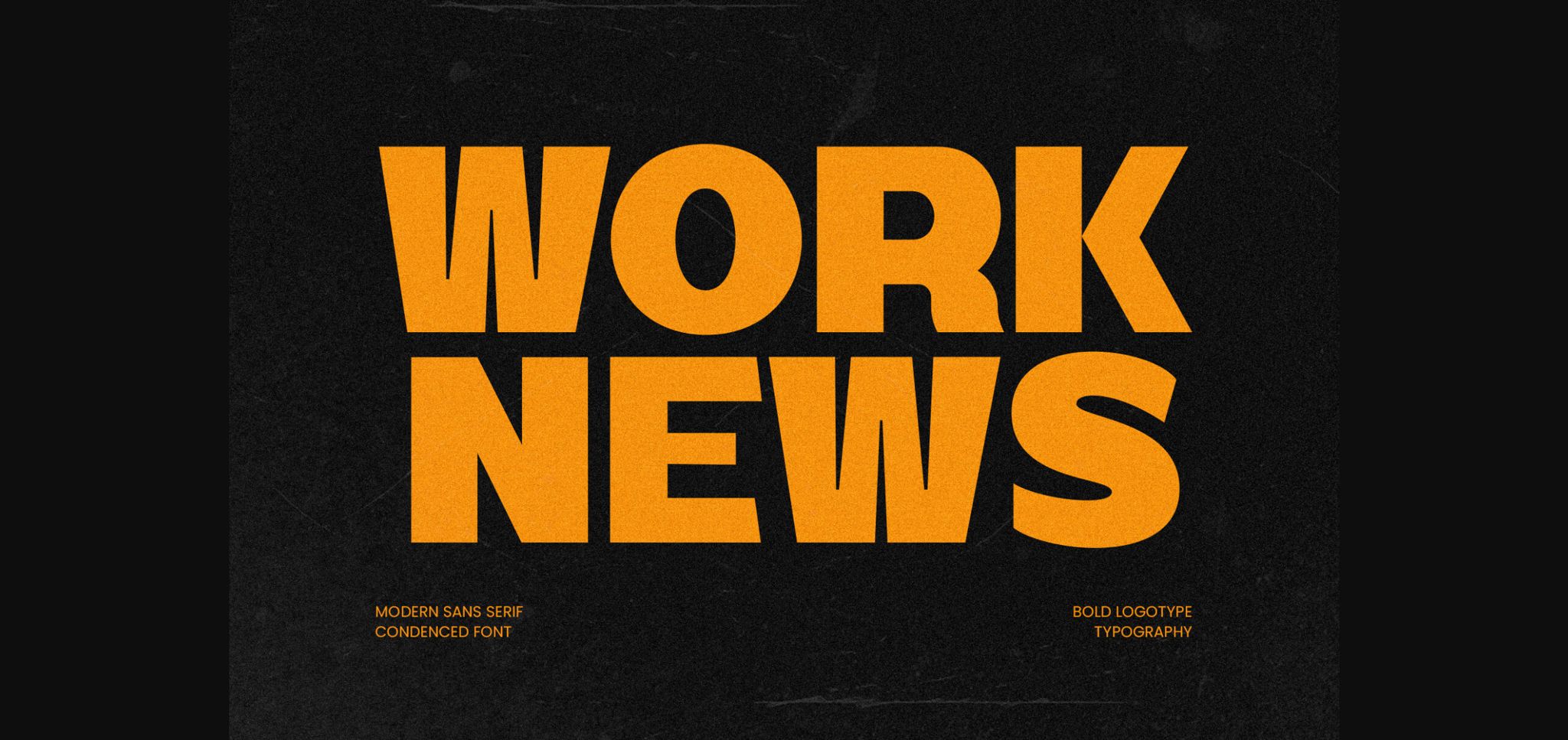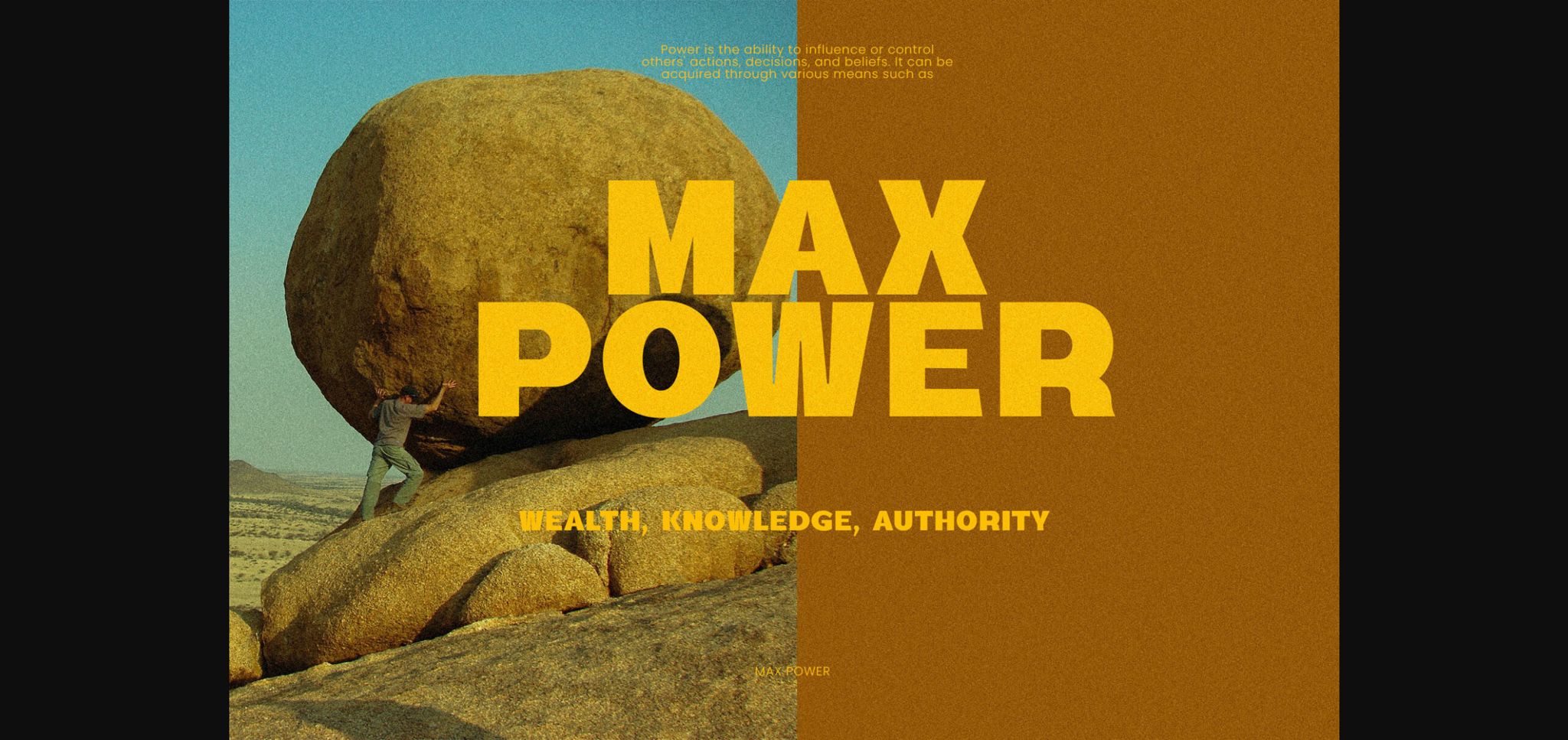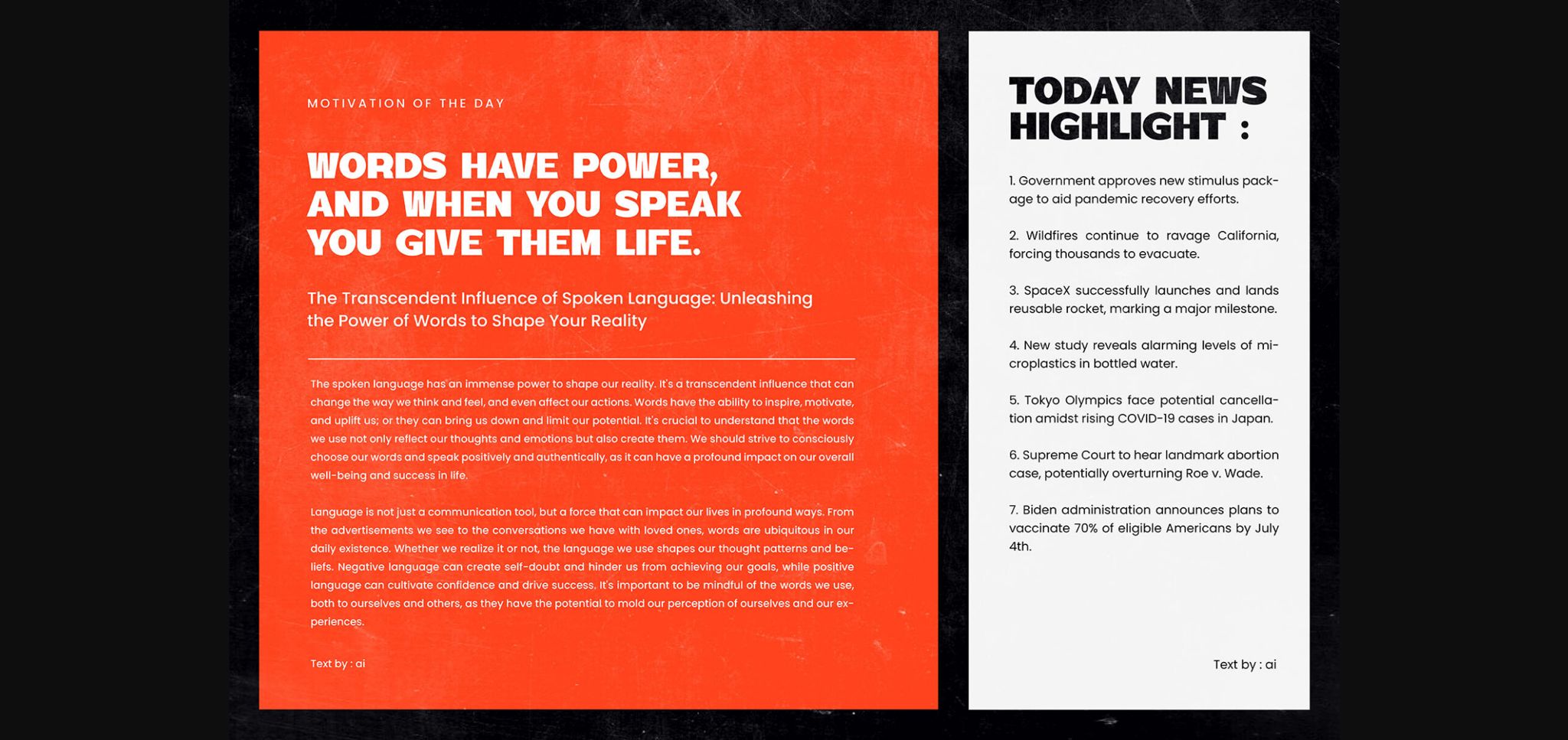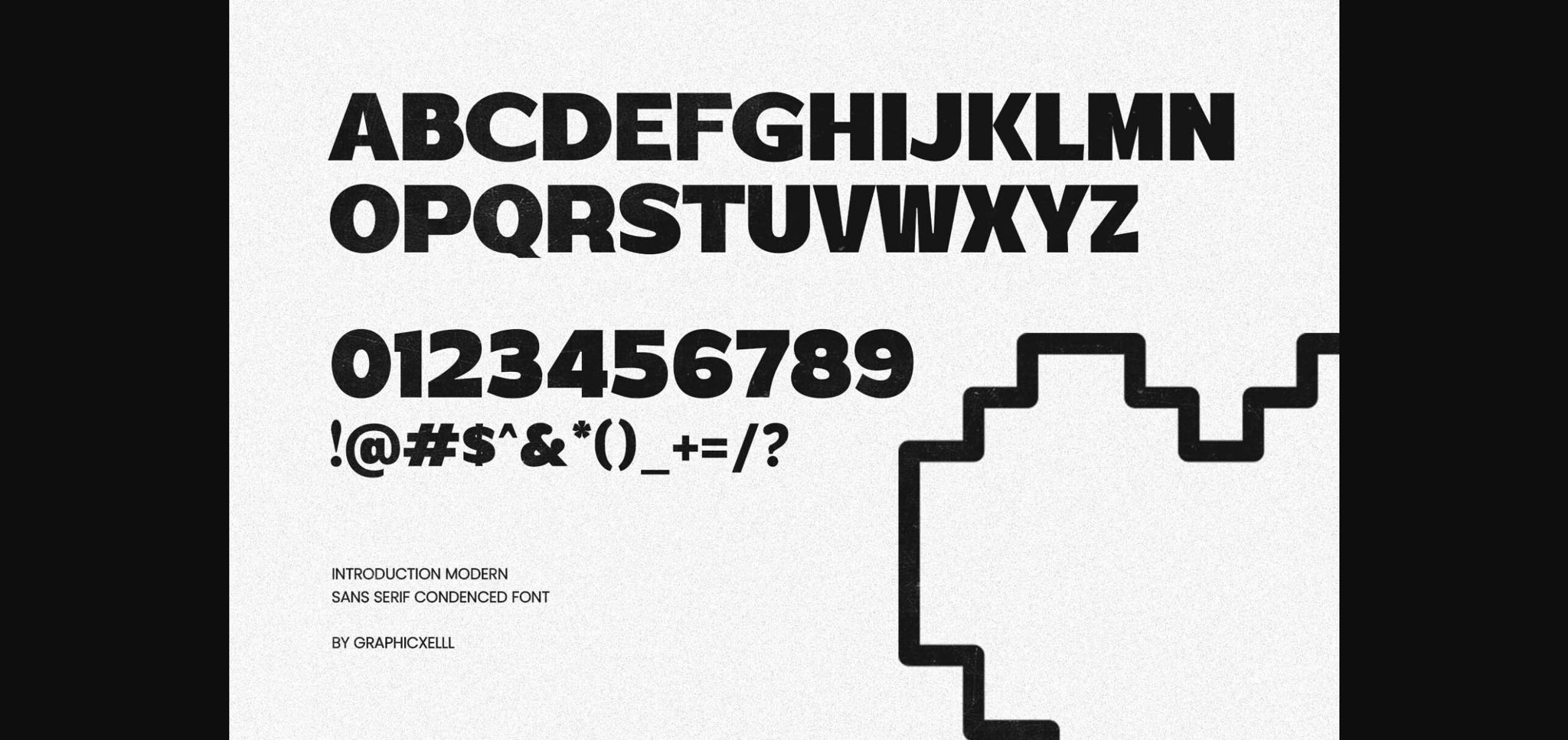
About Work News Font
Work News font is a sleek and contemporary condensed sans-serif typeface. Its clean lines and modern aesthetic make it the perfect choice for conveying a sense of professionalism and efficiency. Whether you’re designing for a corporate report, website, or signage, Work News font delivers a crisp and streamlined look that means business.